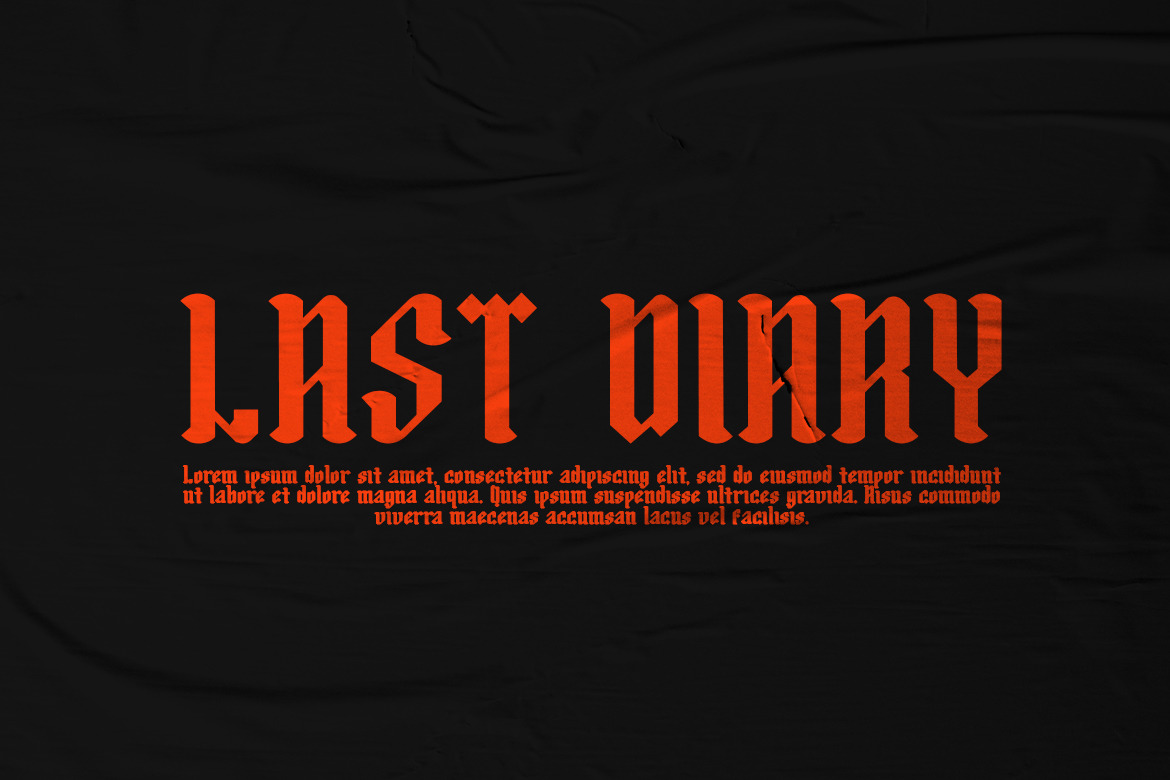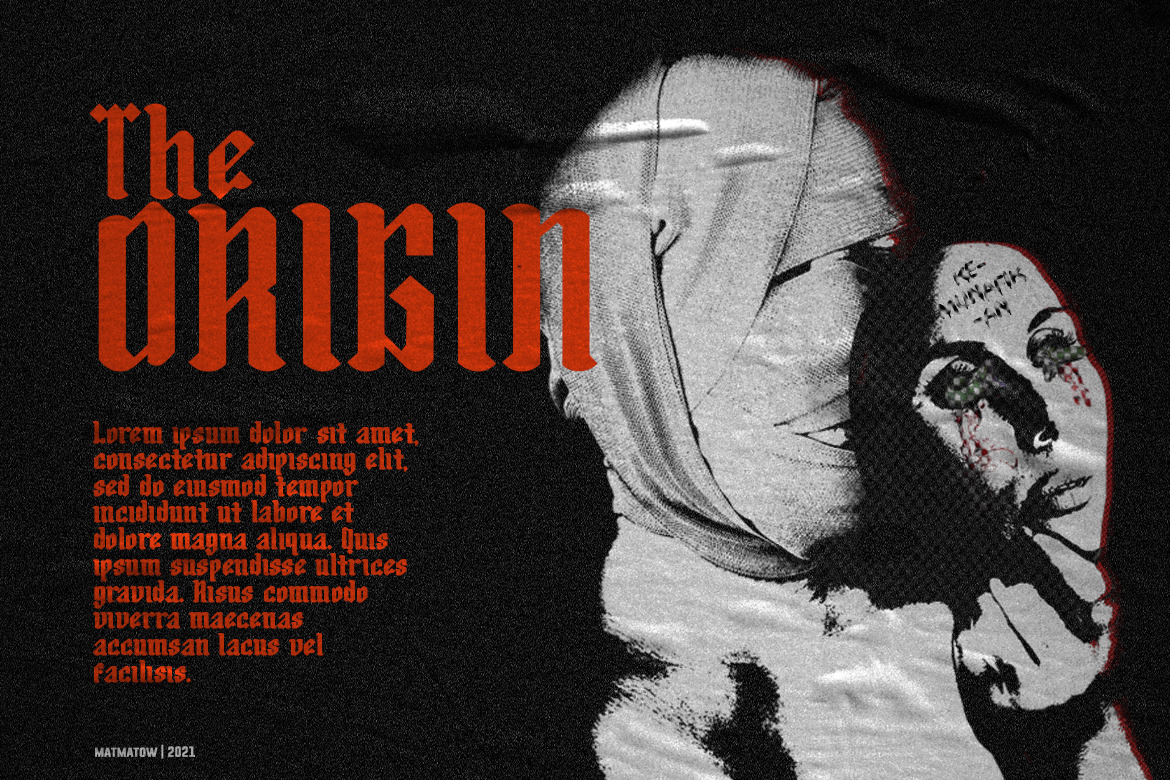
Handecke - Gothic Display Typeface
Handecke is a gothic-style blackletter font. This vintage font is perfect for books, magazines, social media posts, invitations, etc. Add this typeface to your creations, and take your designs to the next level!